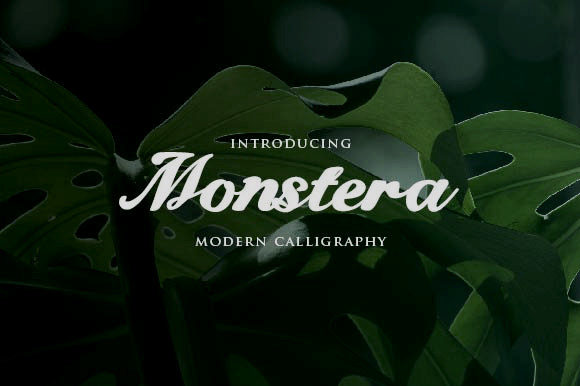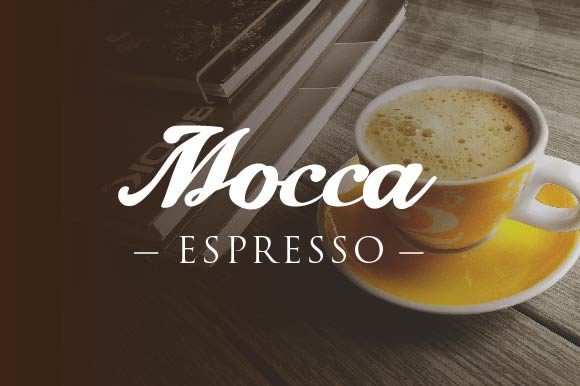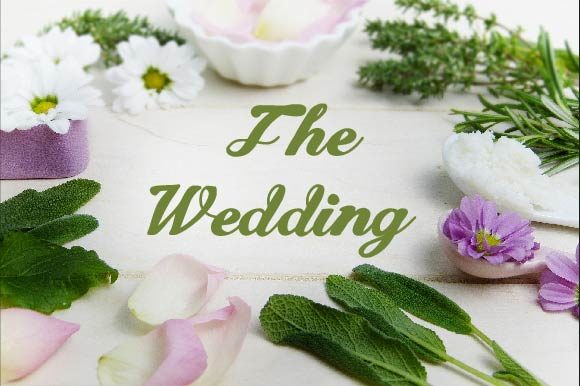
About Monstera Font
Introducing “Monstera,” an incredibly unique and gracefully flowing handwritten font that will captivate your imagination. Its distinctive style makes it a perfect match for a wide variety of design projects. Prepare to be enamored by its incredible versatility and watch as it adds a touch of magic to your creations, allowing you to craft stunning designs that leave a lasting impression!
“Monstera” is the perfect choice for creating gorgeous wedding invitations that exude style and creativity. Its flowing and one-of-a-kind strokes set the perfect tone for a unique and unforgettable celebration. Whether it’s an intimate garden wedding or a modern city affair, this font effortlessly complements your vision, making each invitation a true work of art.
Beyond weddings, “Monstera” shines on beautiful stationary art. Craft stunning greeting cards, inspiring art prints, or captivating posters that express emotions with authenticity. Its handwritten charm adds a personal touch to each piece, turning them into cherished keepsakes for the recipient.
When it comes to social media, “Monstera” becomes your go-to font for creating eye-catching and captivating posts. Share quotes, announce exciting news, or promote your brand with flair. The font’s versatility allows you to create visually stunning content that engages your audience and leaves a lasting impression.
The beauty of “Monstera” lies in its ability to adapt to various design projects. Whether you’re working on web graphics, product packaging, or event flyers, this font elevates your creations with a touch of uniqueness and allure.
Unleash your creativity and let “Monstera” be the muse for your most imaginative designs. Fall in love with its flowing and handwritten magic, and watch as it transforms your ideas into breathtaking visuals that captivate and inspire.
So, embrace the enchantment of “Monstera” and let it become your creative companion. Allow its unique and flowing handwritten charm to inspire your designs, turning them into visual masterpieces that leave a lasting impact. Whether you’re a seasoned designer or a passionate enthusiast, “Monstera” empowers you to create stunning visuals that stand out and make a statement. Let “Monstera” be the catalyst for your creativity and watch as it weaves its magic into every project you embark on!